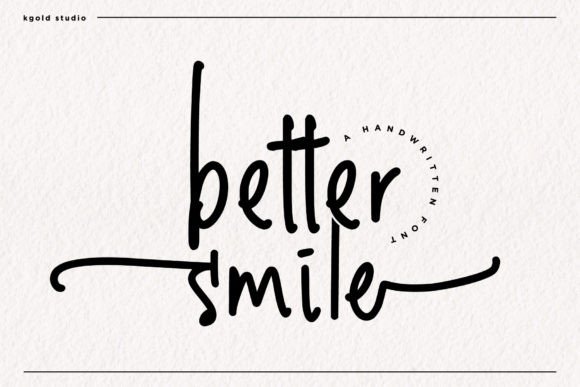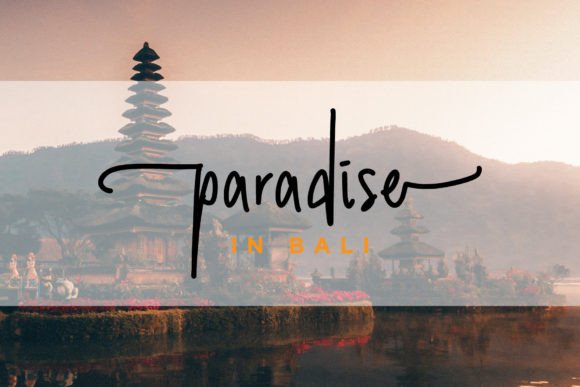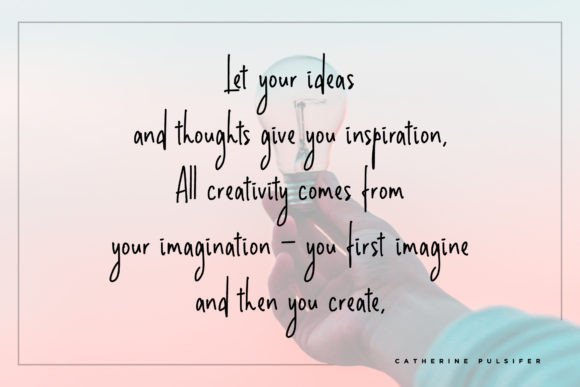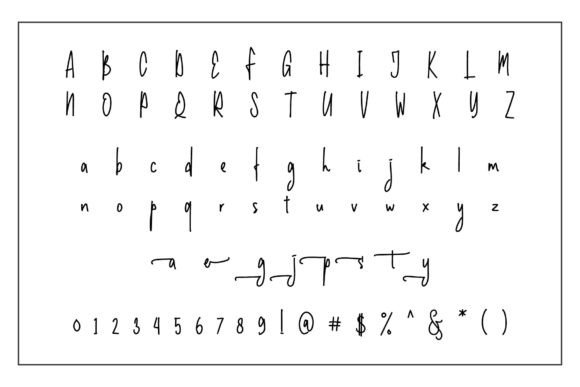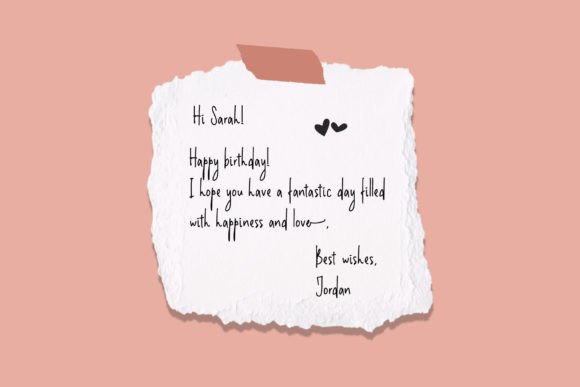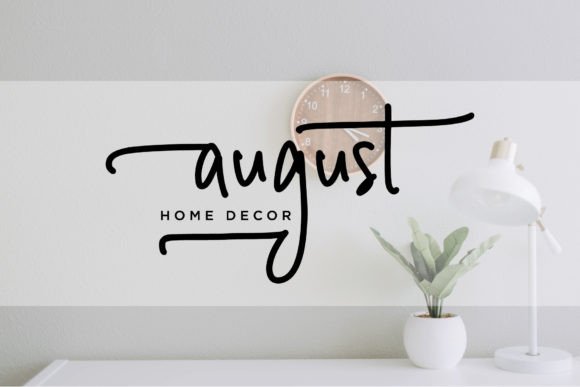
Better Smile Font
Introducing the Better Smile Font Download – your next favorite for casual and approachable design projects. This charming handwritten typeface brings a relaxed, quirky personality to your text while maintaining legibility and balance. Whether you’re working on digital graphics, product branding, social media content, or handmade crafts, Better Smile is designed to add a personal, human touch.
A Font That Feels Like a Friendly Note
The Better Smile Font download features a simple and friendly design, ideal for creatives looking to incorporate a more human and spontaneous element into their work. With its informal style and laid-back curves, this handwritten font feels like it was written just for the reader. It strikes the perfect balance between playful energy and clean readability, making it suitable for a wide range of visual content.
From casual branding to heartwarming messages, Better Smile is a versatile font choice. The strokes are crafted with just enough irregularity to mimic natural handwriting, without becoming messy or hard to read. This makes it a great font for anyone looking to achieve authenticity in their design.
Perfect for Multiple Creative Uses
With the Better Smile Font download, you’ll get a typeface that adapts to a variety of design scenarios. Use it for:
• Greeting cards and invitations
• Logo design and branding
• Children’s books or educational materials
• Social media graphics and posts
• Custom apparel and product packaging
• Digital planners and journals
• Scrapbooking and DIY printables
Whether you’re creating content for fun, education, or commercial use, this font will bring an inviting warmth that enhances your message.
Designed for Designers
Additionally, it includes standard glyphs and multilingual support, making it useful for global audiences. Whether you’re designing in English, Spanish, French, or beyond, Better Smile supports your creative expression.
Why Choose the Better Smile Font?
What makes Better Smile Font download stand out is its universal appeal. It’s not overly stylized, yet it has enough flair to bring character to your designs. It’s the kind of font that feels personal without being overly elaborate—perfect for heartfelt messages and approachable branding.
If you’re searching for a relaxed and adaptable handwritten font that keeps your work looking professional yet warm, then Better Smile is the perfect addition to your design toolkit.